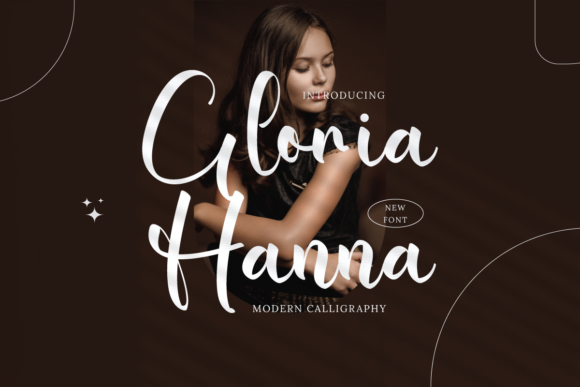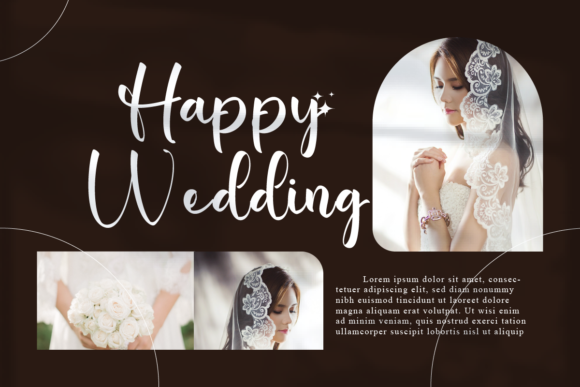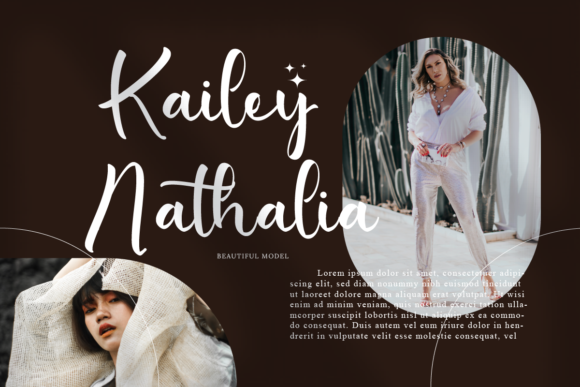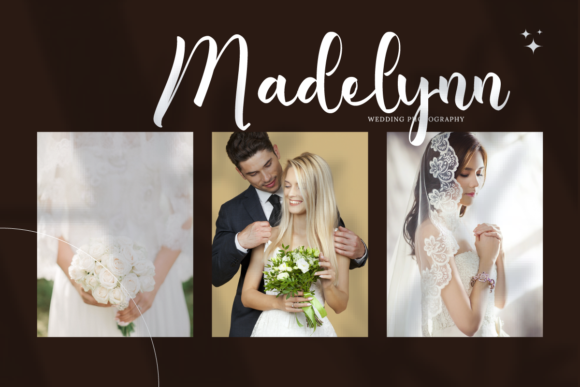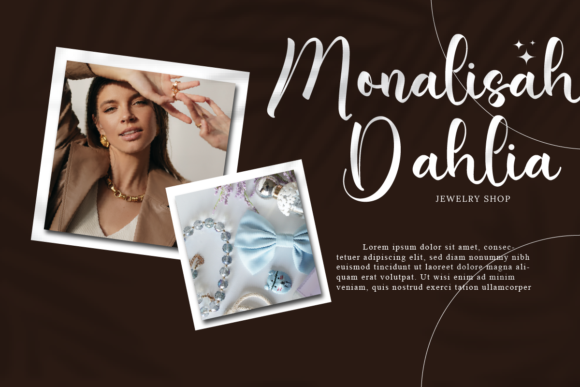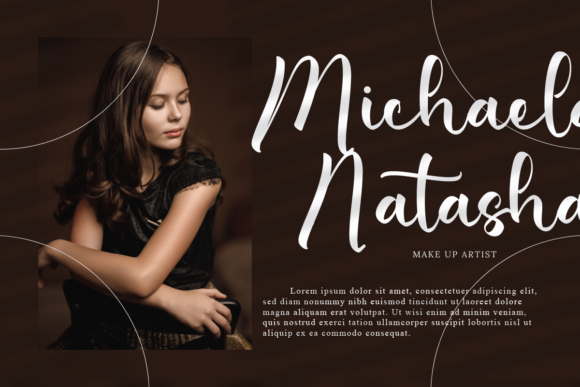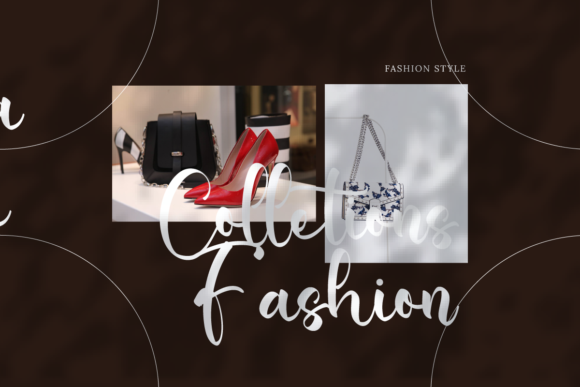
Unleashing the Elegance of Handwritten Design
Have you ever found yourself scribbling down ideas on a piece of paper, only to realize that the imperfections and quirks of your handwriting are what make the design truly special? For many designers, it’s the organic feel of handwritten elements that brings a project to life. In a world where digital fonts can sometimes feel cold and impersonal, the need for elegant and refined script fonts has never been greater.
Enter Gloria Hanna Font, a simple yet sophisticated script font designed to evoke the warmth and personality of handwritten text. With its latest style letters, this font is perfect for creating eye-catching wall displays, wedding invitations, social media post logos, advertisements, and any project that requires a touch of elegance and sophistication. Whether you’re a seasoned designer or just starting out, Gloria Hanna Font is a valuable addition to any design arsenal.
Gloria Hanna Font Key Features
- Font Family: Gloria Hanna
- Unique Characteristics: Gloria Hanna is a script font with a vintage and elegant feel, featuring flowing connections and a mix of cursive and handwritten styles.
Gloria Hanna Font Review
Overall, Gloria Hanna is a beautiful and elegant script font, perfect for adding a touch of sophistication to any design project ✨. Its fluid connections and subtle flair make it ideal for use in wedding invitations, stationery, and other high-end applications.
- Highly legible, even at smaller font sizes ✨
- Wide range of language support, making it a great choice for international projects ✨
However, there are a few limitations to consider ⚠️. The font is quite ornate, which can make it difficult to read at very small sizes or in low-resolution environments. Additionally, the font’s delicate connections can be prone to breaking or distorting if not used correctly.
- May not be suitable for use in very small sizes or low-resolution environments ⚠️
- Requires careful handling to avoid breaking or distorting the delicate connections ⚠️
In conclusion, Gloria Hanna is a stunning script font that is sure to elevate any design project. While it may require some careful handling, its beauty and elegance make it well worth the effort ✨.
For best results, use Gloria Hanna Font for titles and headings in your design.
Gloria Hanna Font is ideal for:
- Vintage-inspired designs
- Home decor and furniture designs
Remember to adjust the font size and color to match your design’s overall aesthetic.
Alternative Fonts to Gloria Hanna Font
Oswald
Oswald is a sans-serif font that is highly legible and versatile. It is suitable for body text, headings, and titles. Oswald is a great alternative to Gloria Hanna Font for designers who want a modern and clean look. Compared to Gloria Hanna Font, Oswald is more minimalist and lacks the ornate details, making it a great choice for digital and print materials.
Playfair Display is a high-end serif font that is perfect for luxury brands and high-end designs. It is a great choice for headings and titles, and can add a touch of elegance to any design. Compared to Gloria Hanna Font, Playfair Display is more formal and luxurious, making it a great alternative for designers who want to create a premium look.
Lato is a modern sans-serif font that is highly legible and versatile. It is suitable for body text, headings, and titles, and is a great choice for digital and print materials. Compared to Gloria Hanna Font, Lato is more modern and clean, making it a great alternative for designers who want a contemporary look.
Merriweather is a classic serif font that is perfect for body text and headings. It is a great choice for designers who want a traditional and timeless look. Compared to Gloria Hanna Font, Merriweather is more formal and classic, making it a great alternative for designers who want to create a sophisticated look.